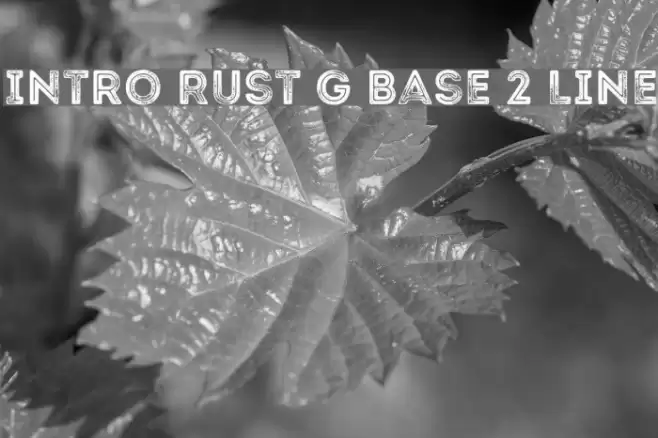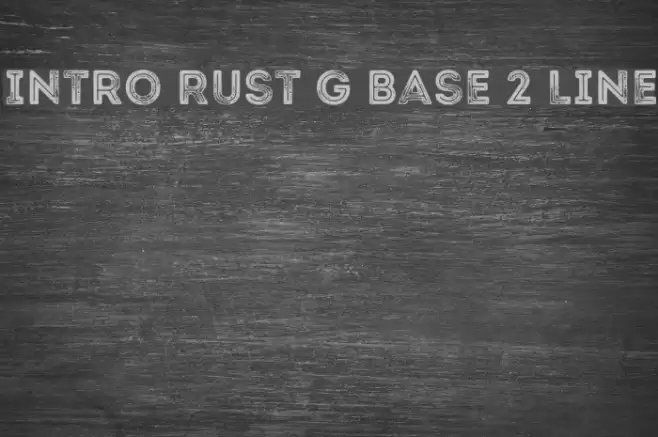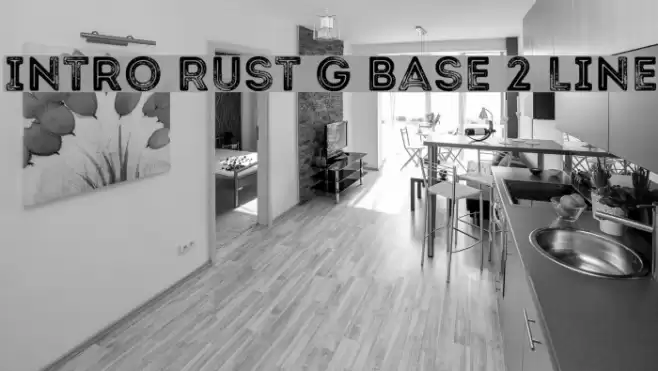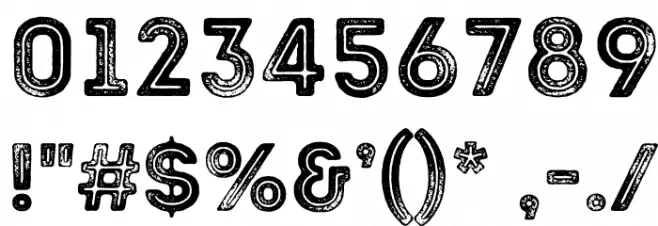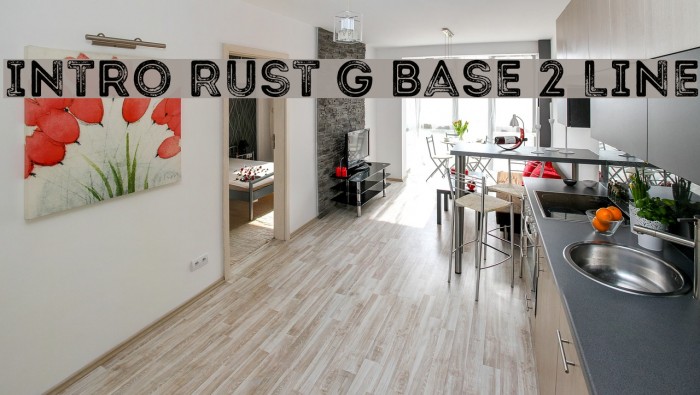
Intro Rust G Base 2 Line Font
Intro Rust G Base 2 Line Description
This font features a bold, textured style with a distressed, vintage appearance. Each character is outlined with a thick, consistent stroke, giving it a strong presence. The interior of the letters is filled with a rough, uneven texture that adds a rustic charm. The uppercase and lowercase letters maintain a uniform height, contributing to a cohesive look. The numerals and special characters follow the same design, ensuring consistency across all elements. This font's unique style makes it ideal for projects that require a touch of nostalgia or a handcrafted feel.
A bold, textured font with a distressed, vintage appearance from Uncategorized fonts.
- Proposed Projects: Ideal for branding, posters, packaging, and any design that requires a vintage or handcrafted aesthetic.
- Overall Style: Vintage